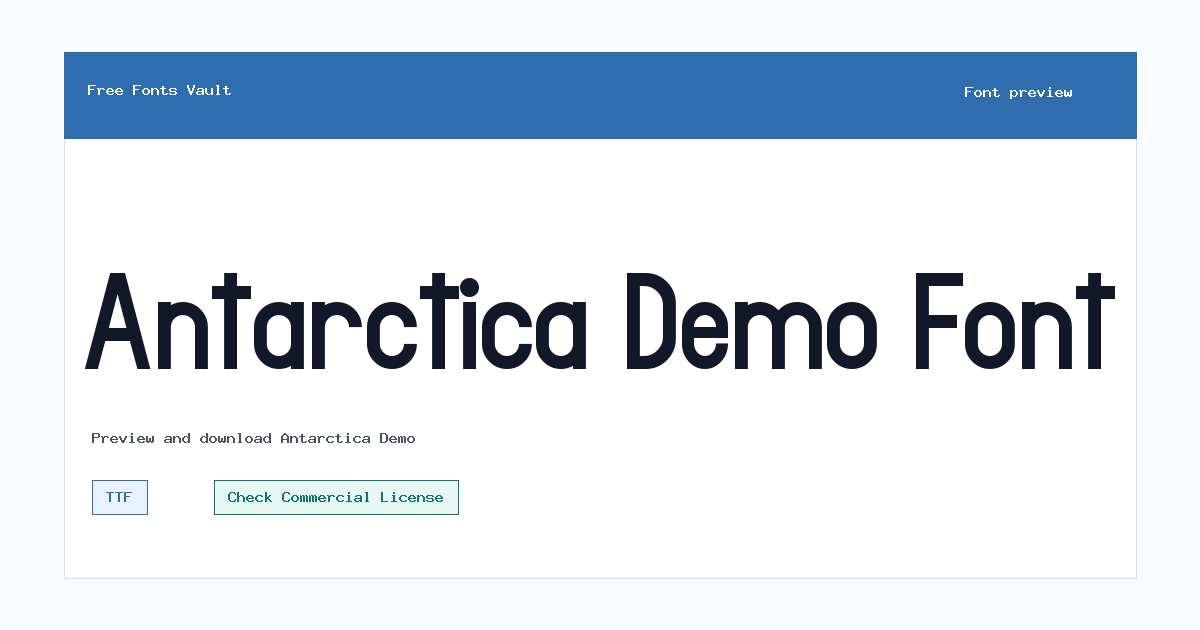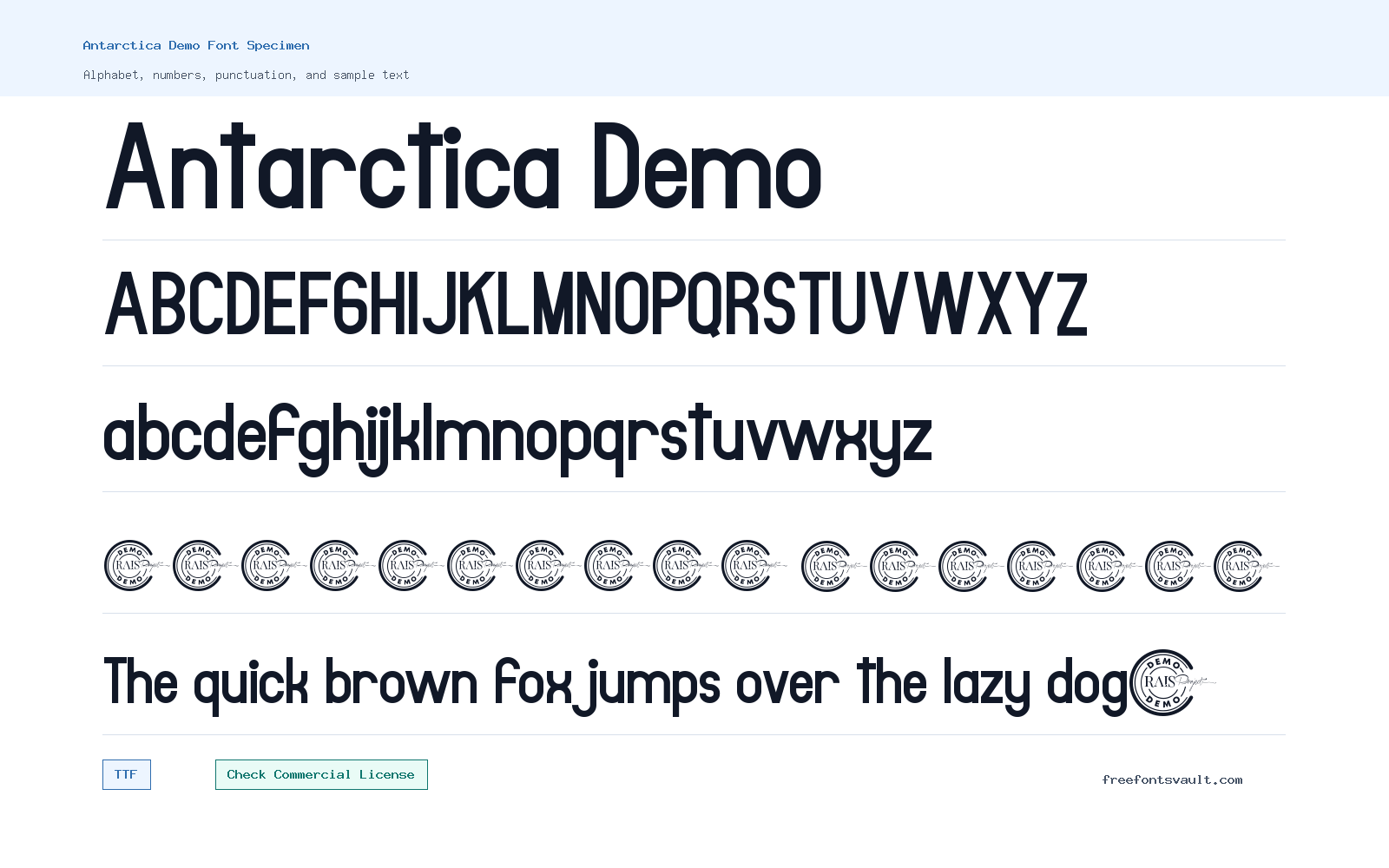
Antarctica Demo
Antarctica Demo is a condensed sans serif display font from RaisProject. It comes in regular, italic, bold, and bold italic TTF files, giving you a small but useful set for testing strong headings and short display text.
Antarctica Demo is built for display use rather than long reading. Its condensed sans serif structure makes words feel narrow and upright, so it can help when you want a title, poster line, label, or social graphic to take up less horizontal space while still looking firm. The family has both upright and italic styles, plus a bold weight for stronger emphasis.
Antarctica Demo includes regular, italic, bold, and bold italic files, so it can be tested across a wider range of display needs. Use the regular style first, then compare bold and italic styles only where the design needs contrast or emphasis.
• Condensed sans serif display style suited to short headlines and compact layouts
• Posters, thumbnails, banners, and title graphics
• Logos-in-progress, packaging mockups, labels, and short branding tests
What kind of font is Antarctica Demo?
It is a condensed sans serif display font, best used for short text such as headlines, posters, labels, and graphic titles.